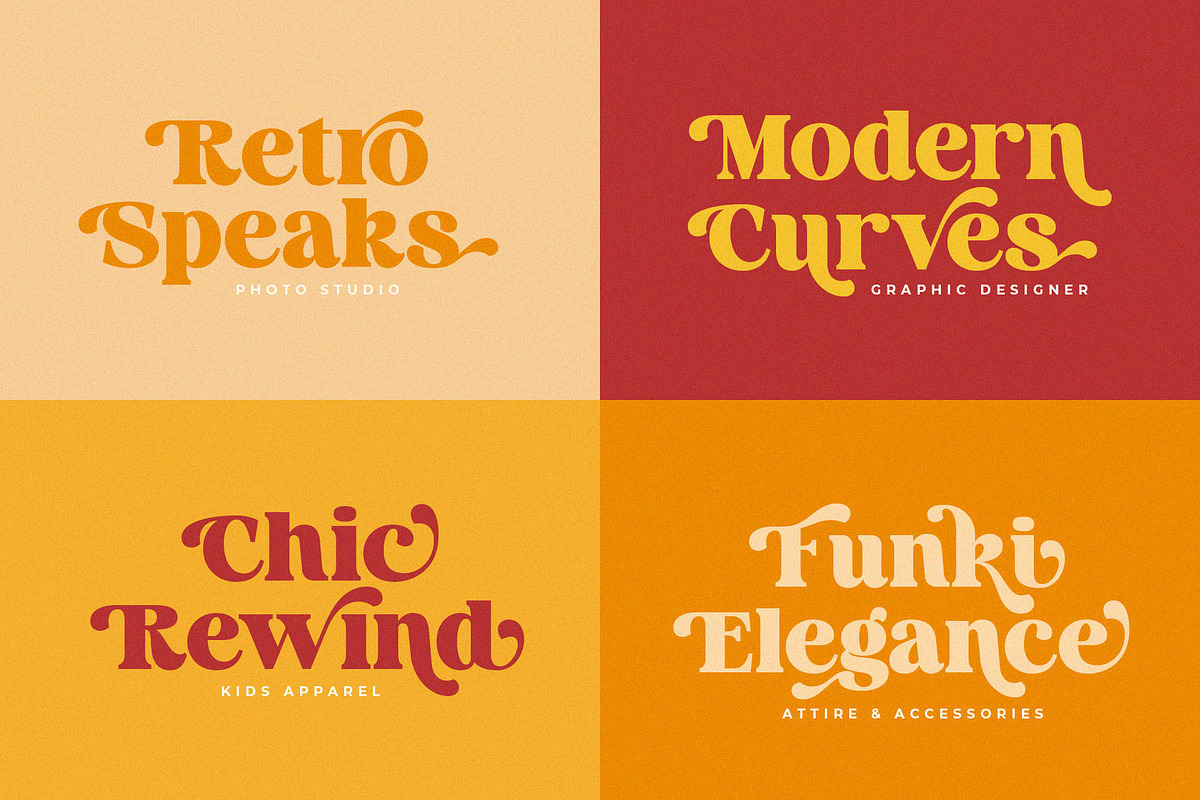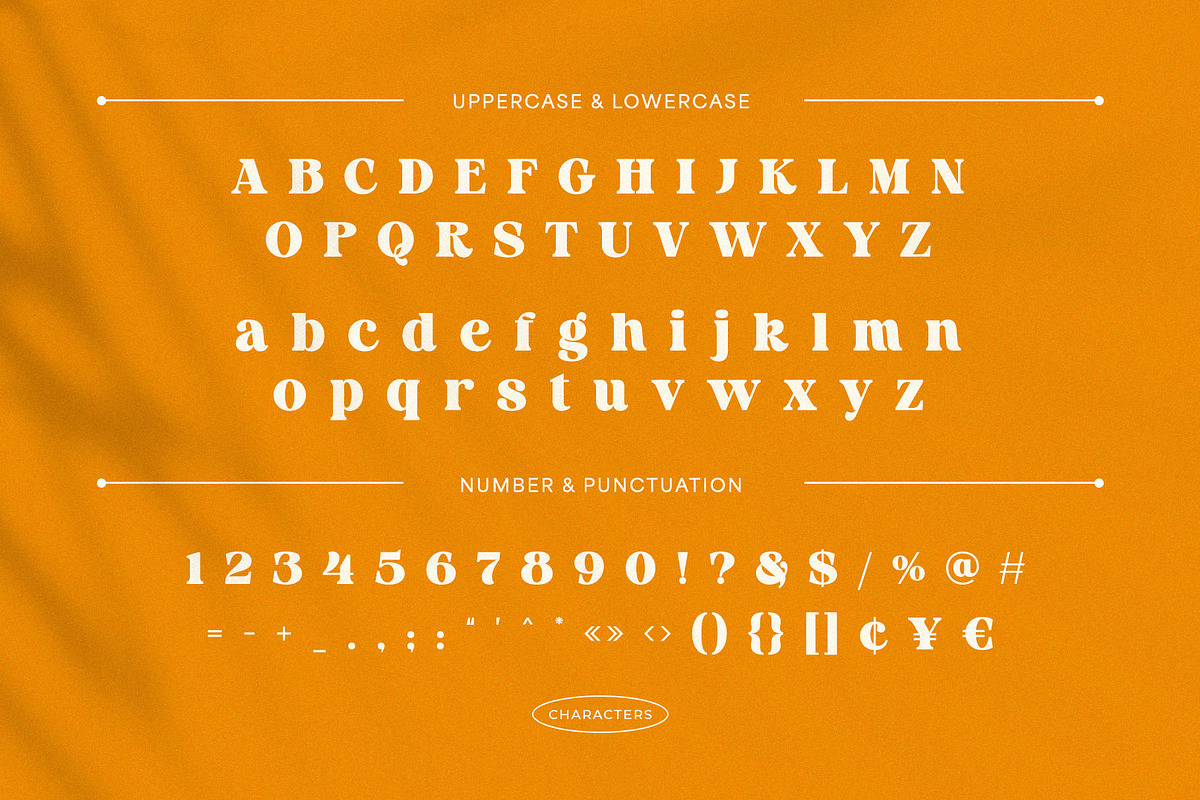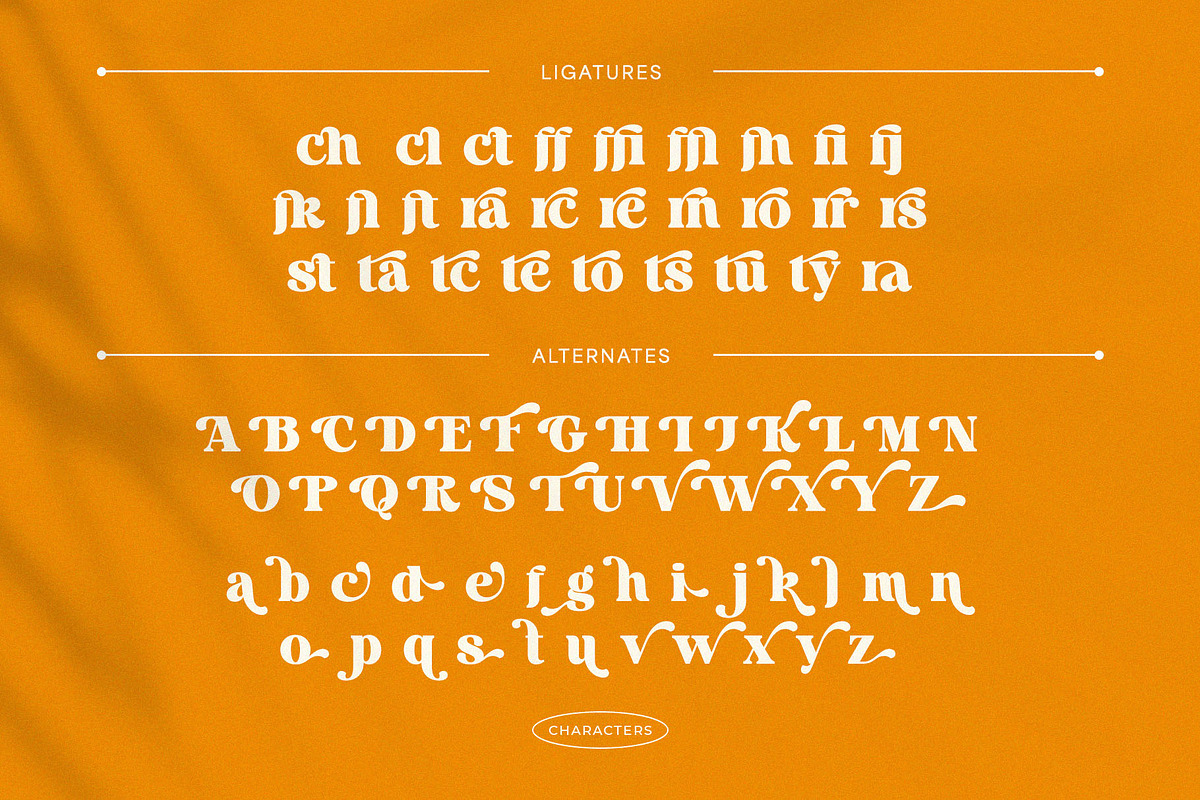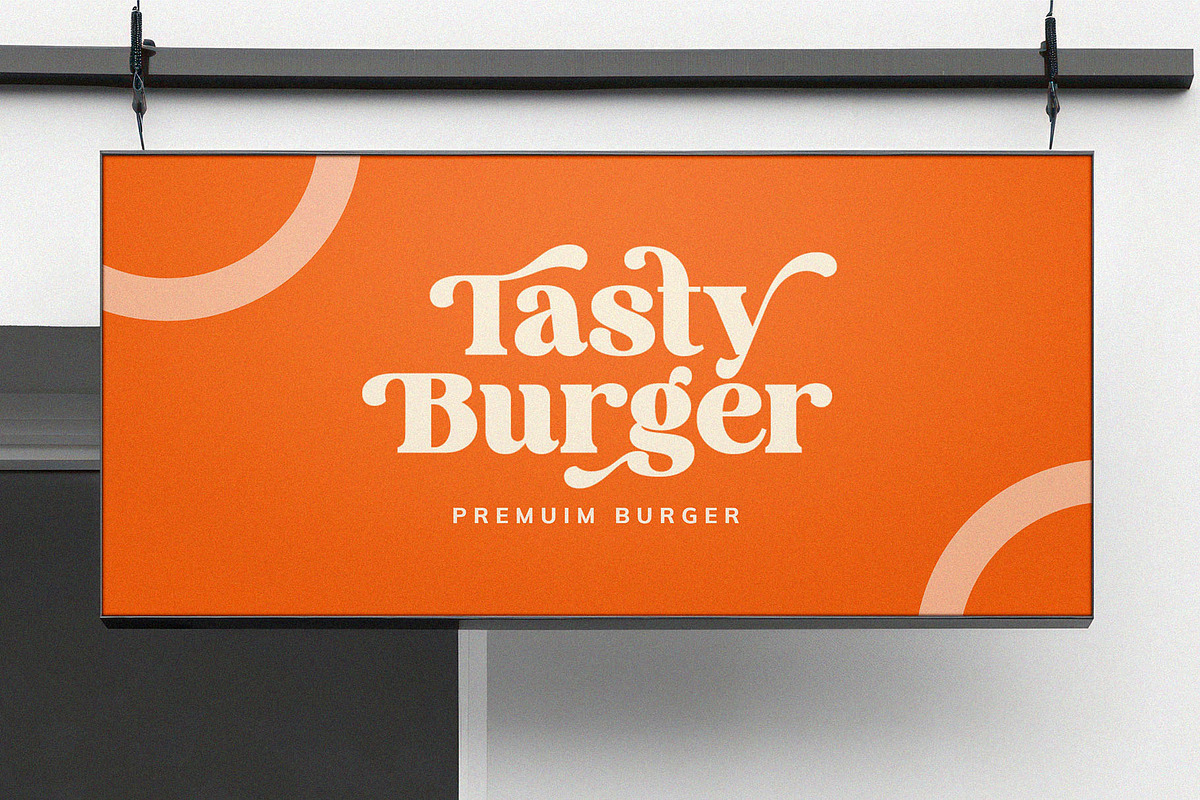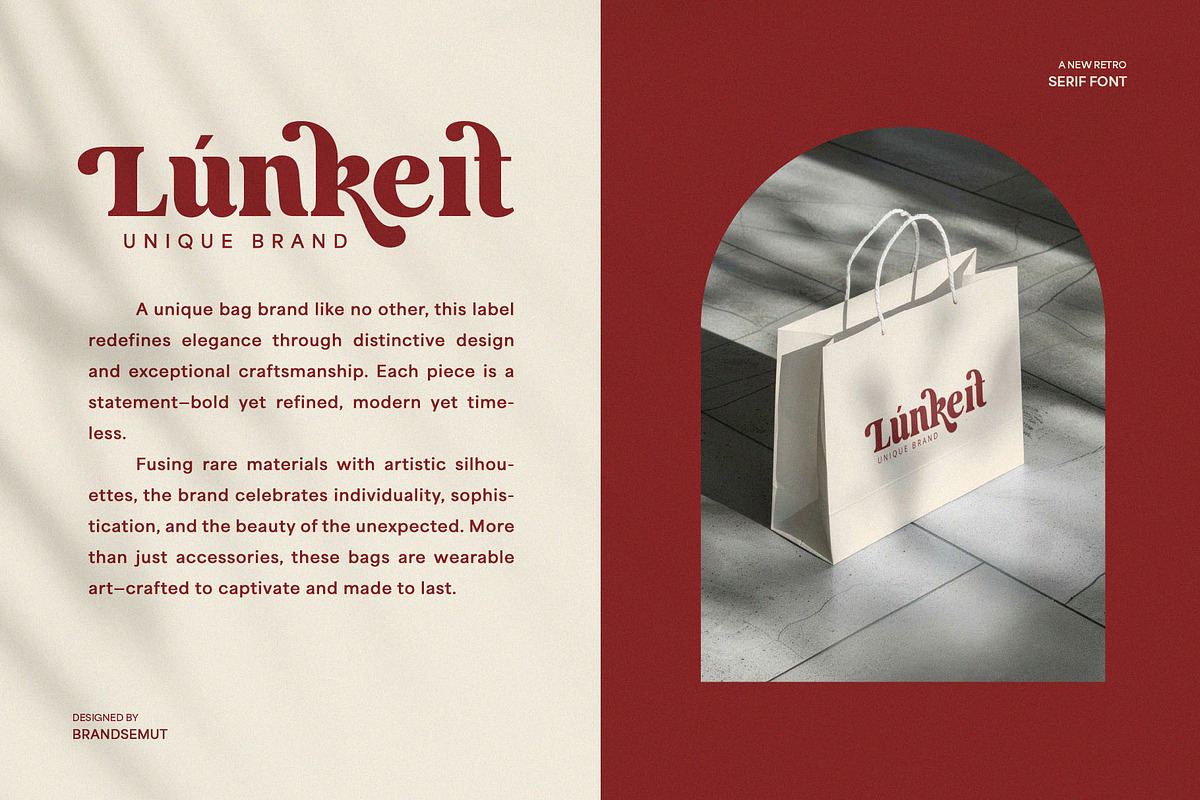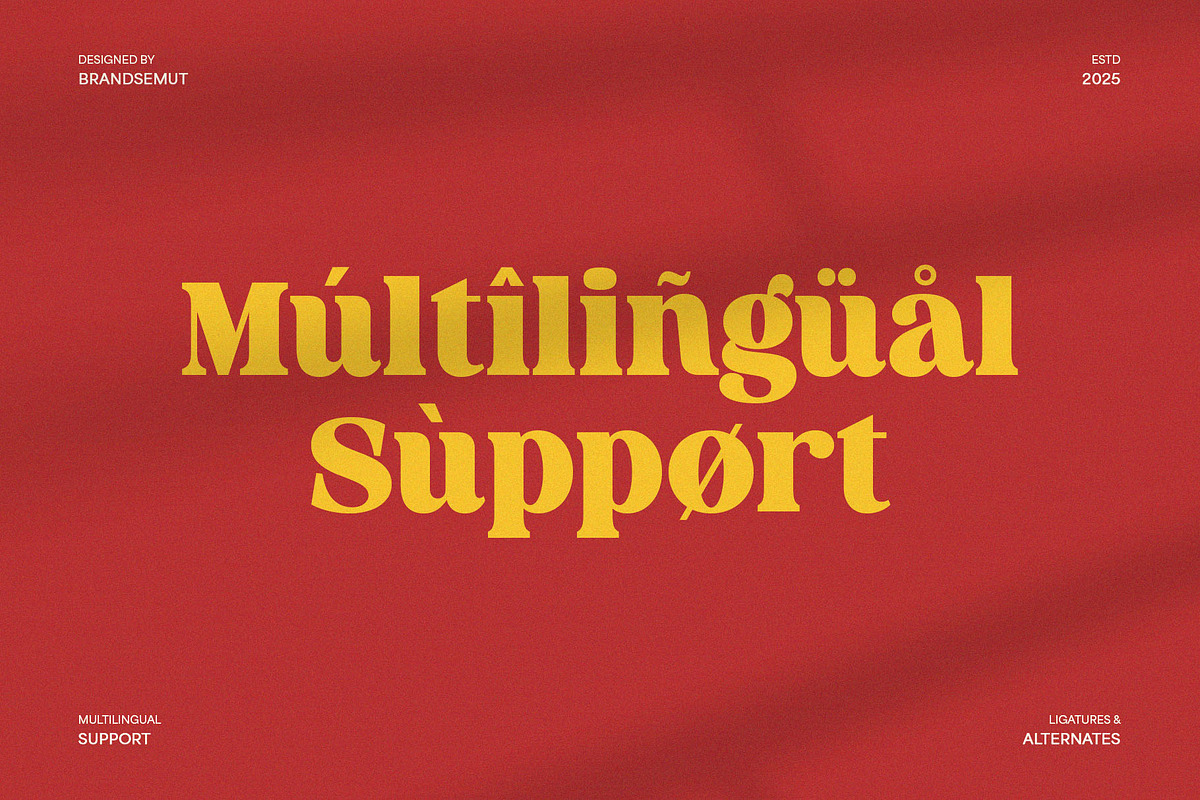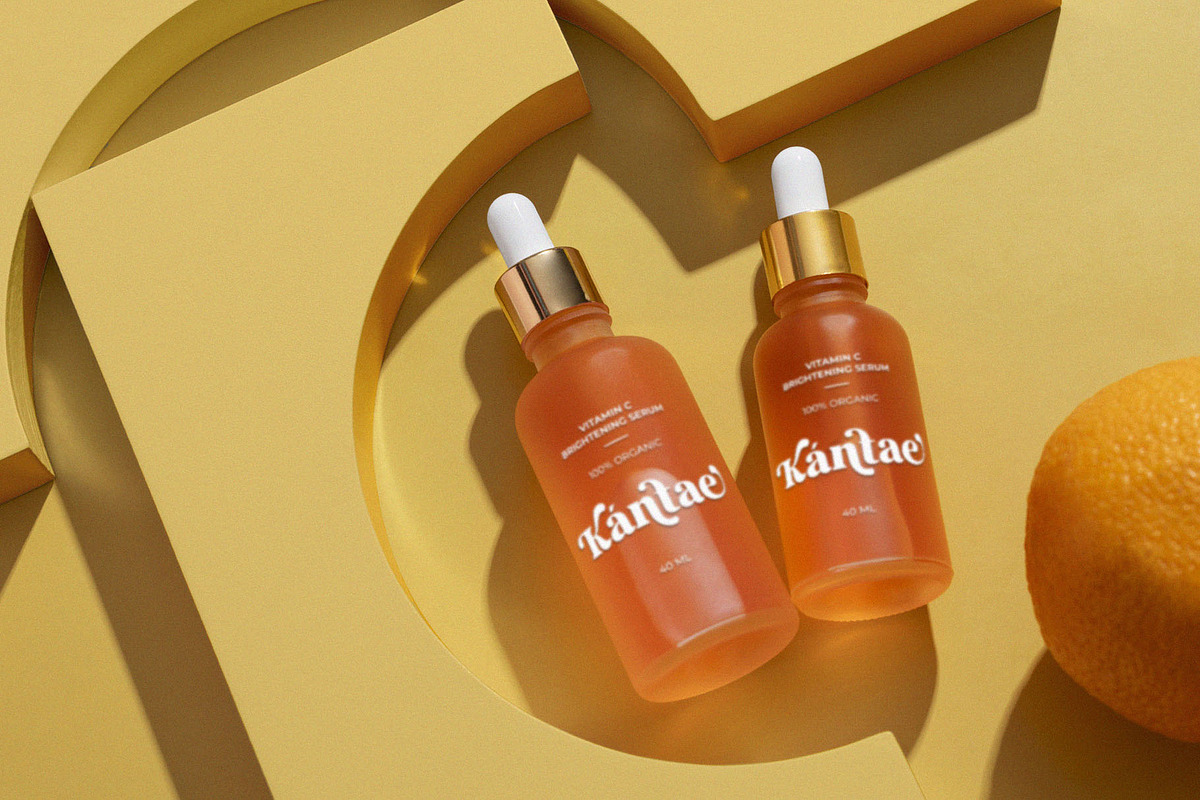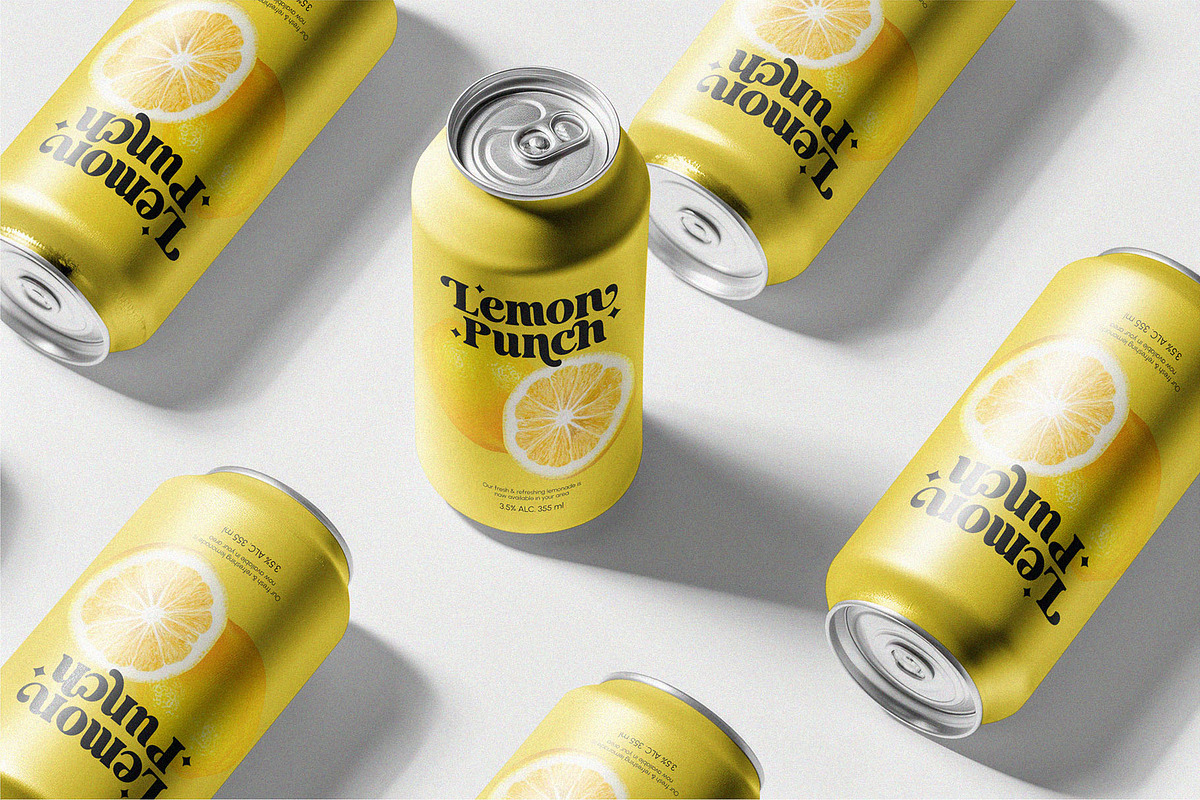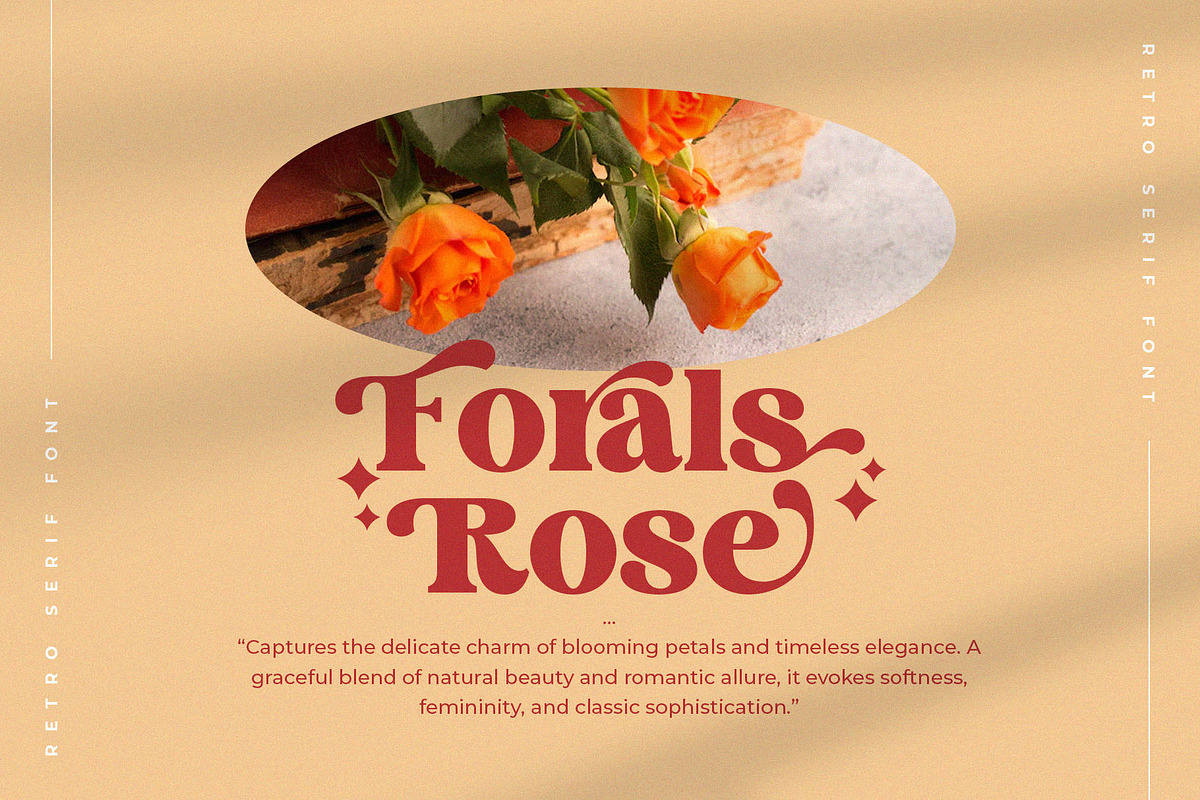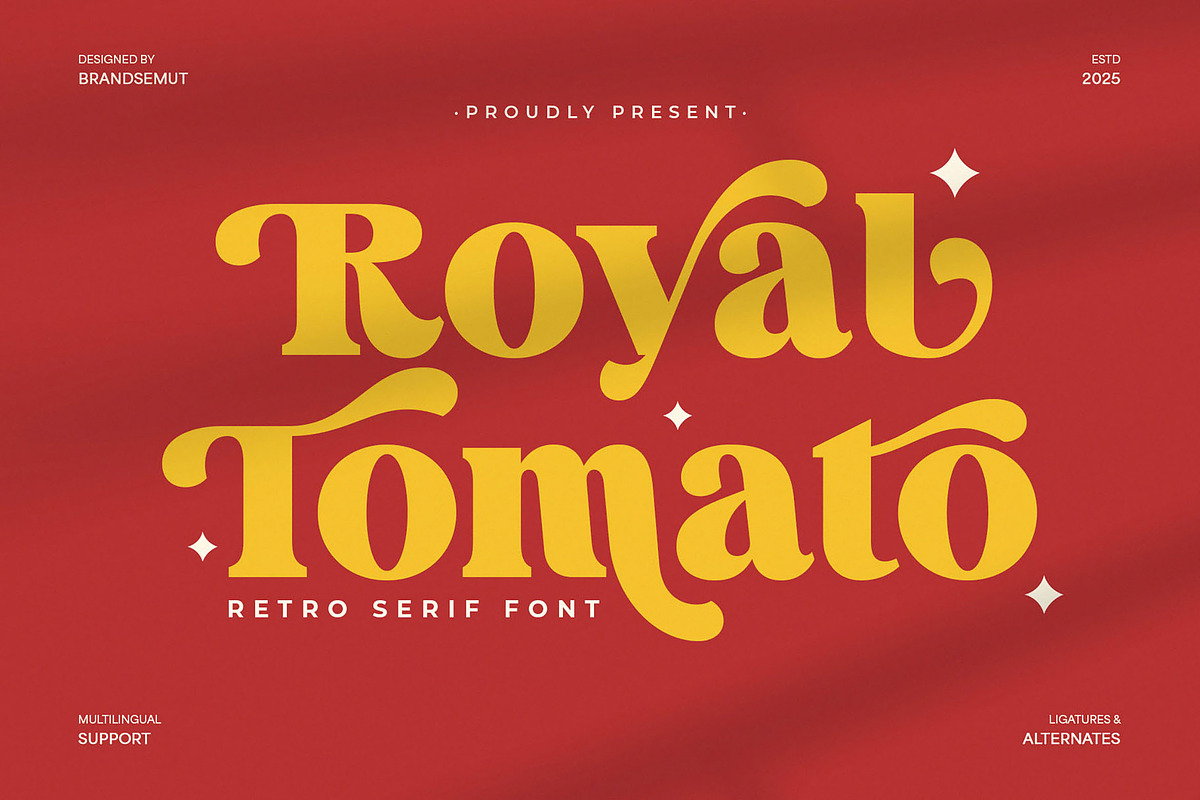
Royal Tomato – Display Retro Serif F
Royal Tomato – Retro Vintage Serif Font with Bold & Elegant Style
Royal Tomato is a retro-inspired serif font that blends vintage charm with bold modern elegance. Designed with unique letterforms, smooth curves, and decorative alternates, this font is perfect for creating standout designs with a nostalgic yet stylish touch. Its thick, confident strokes and playful details make it ideal for branding, packaging, logos, posters, invitations, and editorial layouts. Royal Tomato offers multilingual support, ligatures, and alternates to give you endless creative possibilities. Whether you are working on a retro-themed project or seeking a distinctive serif typeface to elevate your design, Royal Tomato delivers both character and versatility.
With its timeless retro aesthetic and modern refinement, this font is an excellent choice for designers who want to capture attention while maintaining elegance and readability. Perfect for high-impact headlines, sophisticated branding, and creative typography projects, Royal Tomato will bring personality and charm to any design.